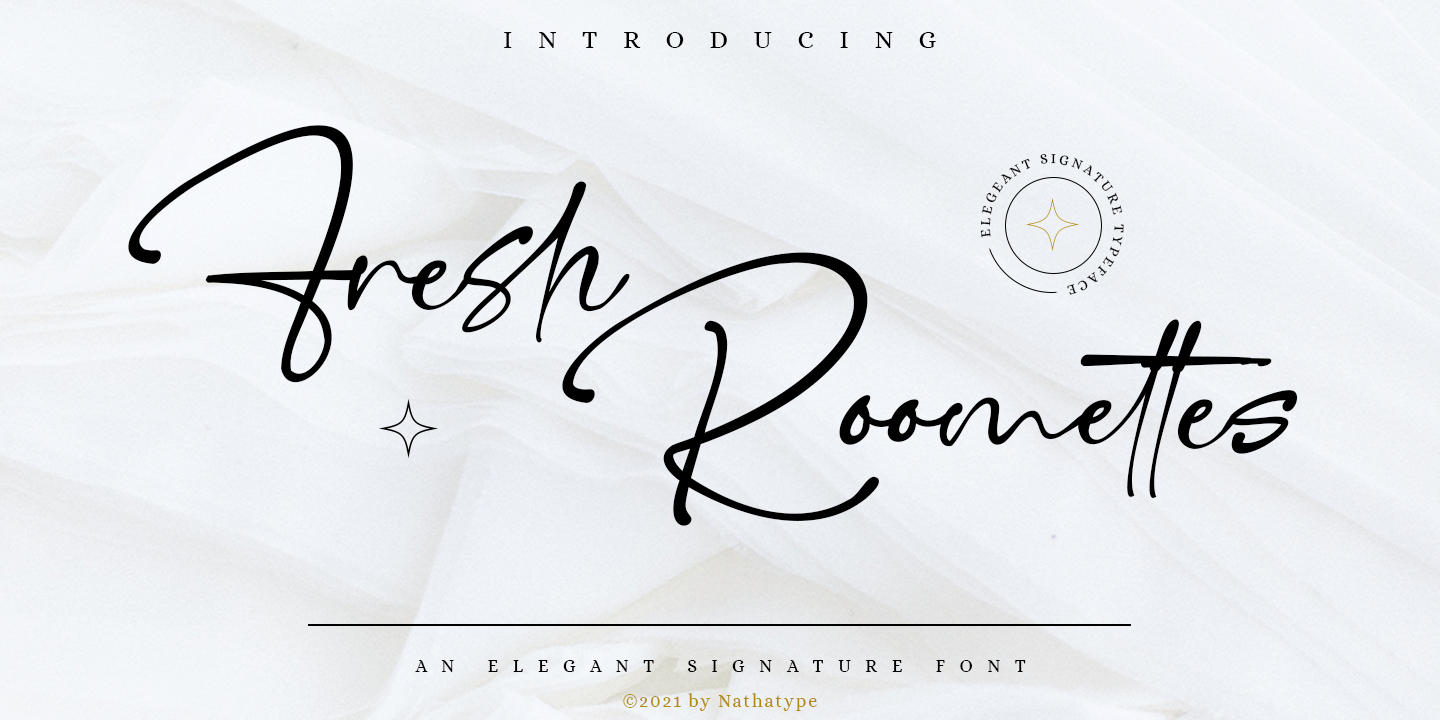
Introducing Fresh Roomettes Font Free Download – a charming handcrafted typeface that blends playful creativity with artisanal elegance. This unique font features irregular letterforms with subtle texture, perfect for projects needing organic character and boutique appeal.
Why Fresh Roomettes Stands Out
Fresh Roomettes Font Free Download offers:
Authentic hand-painted lettering aesthetic
Perfect balance of whimsy and sophistication
Multiple stylistic alternates for variation
Excellent readability despite artisanal quality
Fresh Roomettes Font Free Download Technical Features:
Uppercase and lowercase characters
Numbers and basic punctuation
PUA-encoded alternates
Artisan Applications:
Handmade product packaging
Boutique café branding
Craft brewery labels
Creative stationery
Farmers market signage
Design Tip: Layer with watercolor textures and natural paper backgrounds for enhanced handmade appeal!